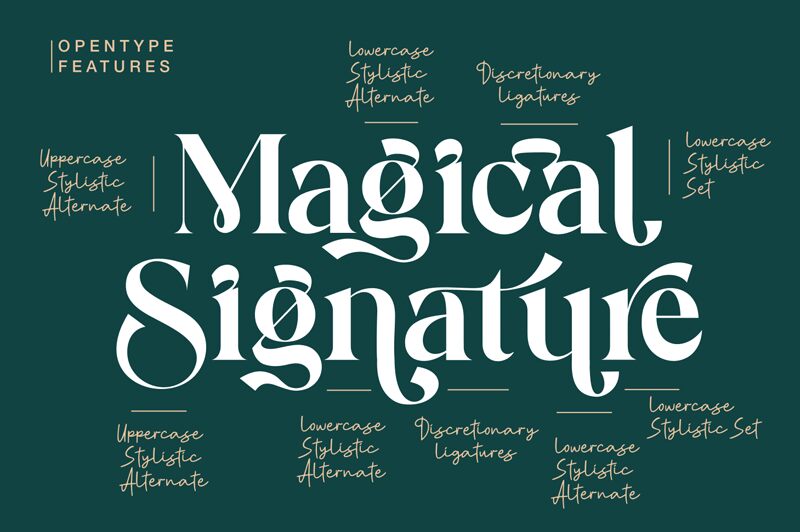
Magical Signature Personal Use
Magical Signature is a bold serif font designed by Zeenesia Studio. It's perfect for creating eye-catching logos, posters, presentations, and branding projects. Its unique style makes it an ideal choice for adding a touch of elegance to your designs.